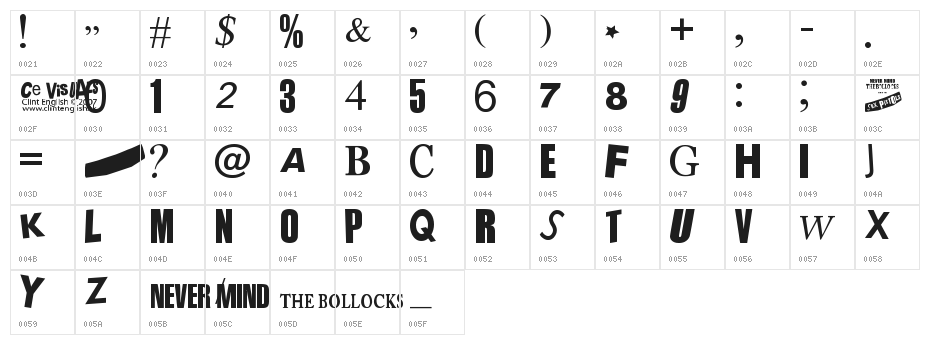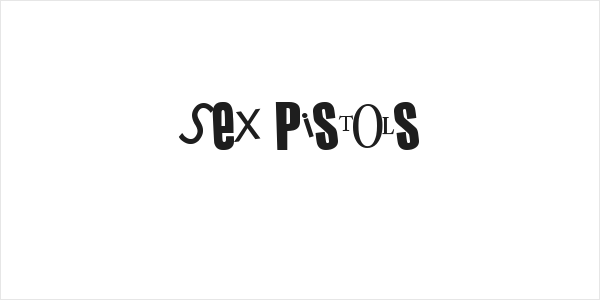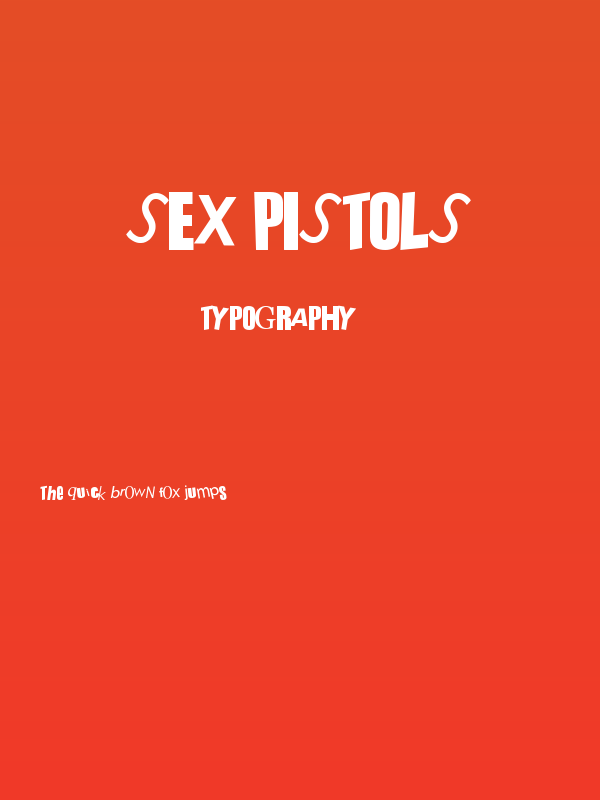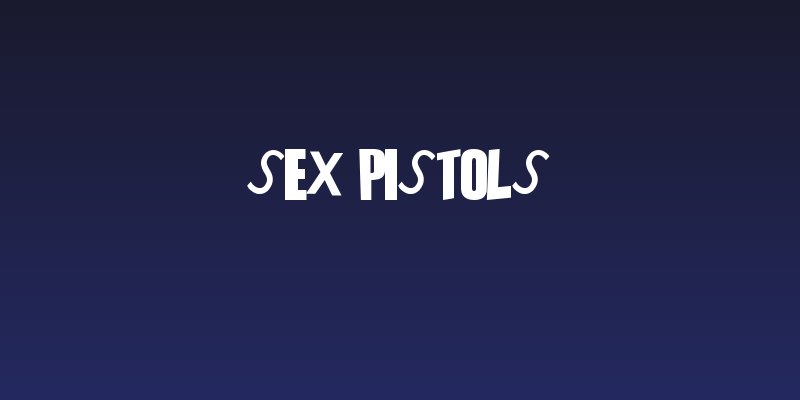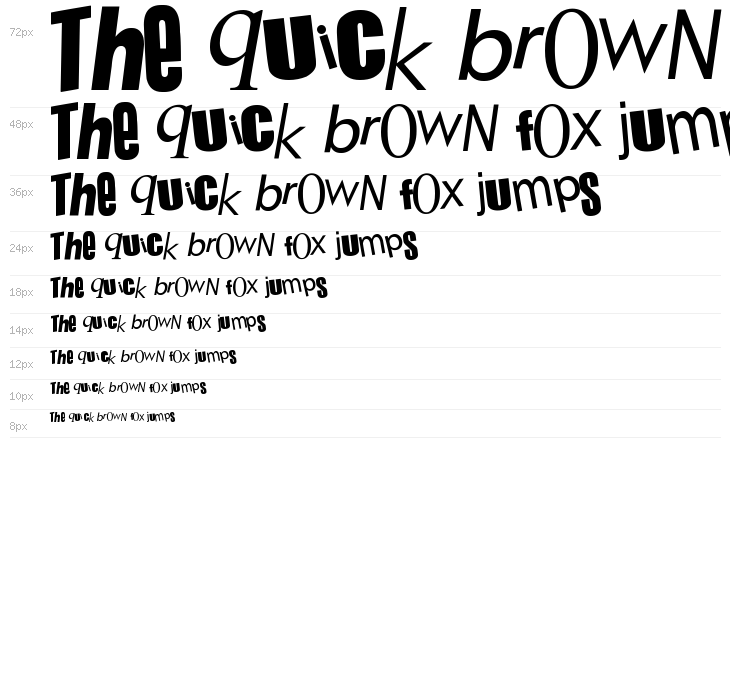
Sex Pistols Font
Sex Pistols Description
This font features a bold and eclectic style, with a mix of thick and thin strokes that create a dynamic and energetic appearance. The uppercase letters are particularly striking, with varying widths and angles that give each character a unique personality. The lowercase letters maintain this playful aesthetic, while the numbers are bold and easily readable. Special characters are creatively designed, adding to the font's overall quirky and rebellious vibe. This font is perfect for projects that require a bold statement and a touch of unconventional flair.